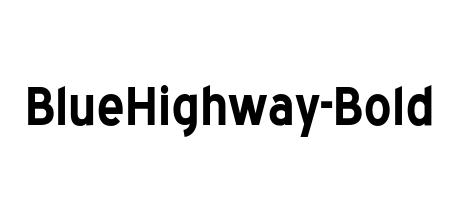
BlueHighway-Bold
By Raymond Larabie
BlueHighway-Bold: A font that roars with confident energy. Its bold strokes evoke the vastness of the open road, while the subtly rounded forms hint at a friendly, approachable nature. Perfect for headlines demanding attention, yet possessing a welcoming quality. A powerful yet approachable choice.